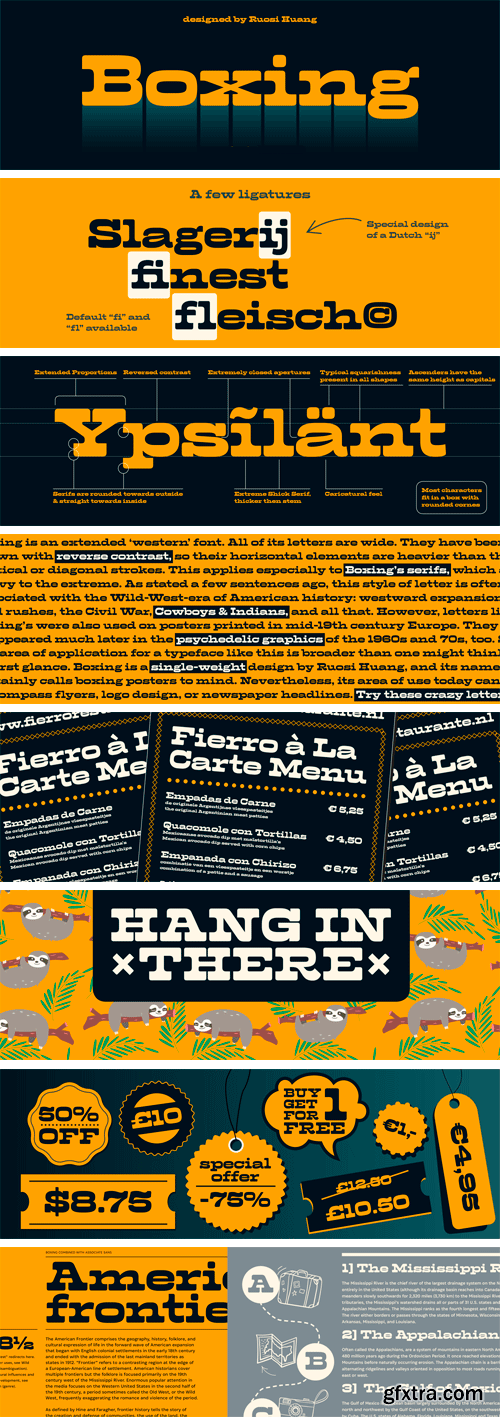
Boxing Font
Boxing is an extended ‘western’ font. All of its letters are wide. They have been drawn with reverse contrast, so their horizontal elements are heavier than the vertical or diagonal strokes. This applies especially to Boxing’s serifs, which are heavy to the extreme. As stated a few sentences ago, this style of letter is often associated with the Wild-West-era of American history: westward expansion, gold rushes, the Civil War, Cowboys & Indians, and all that.
However, letters like Boxing’s were also used on posters printed in mid-19th century Europe. They reappeared much later in the psychedelic graphics of the 1960s and 70s, too. So, the area of application for a typeface like this is broader than one might think at first glance. Boxing is a single-weight design by Ruosi Huang, and its name certainly calls boxing posters to mind. Nevertheless, its area of use today can also encompass flyers, logo design, or newspaper headlines. Try these crazy letters out!